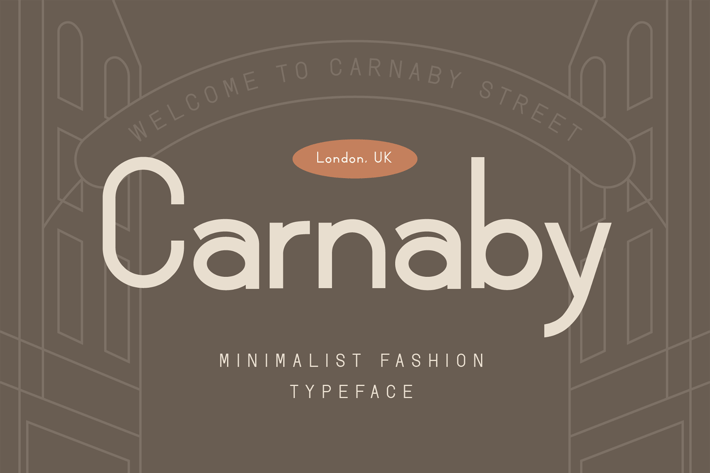
Minimalist Sans Serif Font
Minimalist fashion is defined by one major principle: keep it simple! Streamlined shapes, a small selection of colors. Simplicity is the key. Carnaby is a sans serif font inspired by Carnaby Street in London, UK. Carnaby has minimalist look to fashion branding, interior design, advertisements, websites, and more.
Alternates & Ligatures
Numerals & Punctuation